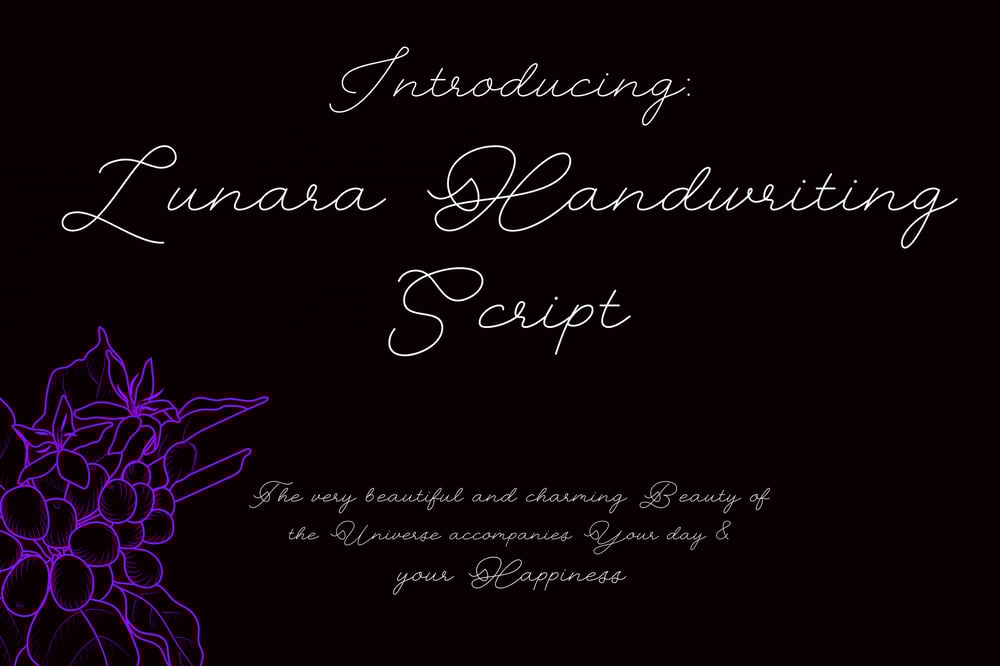
Lunara Handwriting Script 6.0 Font Family was designed by Ar Ars and published by Font Seven. Lunara Handwriting Script 6.0 contains 1 styles and family package options. Lunara Handwriting Script 6.0 is a light version of the original Lunara Handwriting Script, offering a more delicate and airy style that’s perfect for minimalistic and modern designs. While maintaining the core elegance of the original font, this version features lighter strokes and optimized spacing, making it ideal for projects that require a subtle, refined aesthetic.Lunara Handwriting Script 6.0 is part of the Lunara family, providing a versatile range of options for designers who want to experiment with different weights and styles. It complements the original Lunara Handwriting Script beautifully, allowing you to mix and match for dynamic typography.